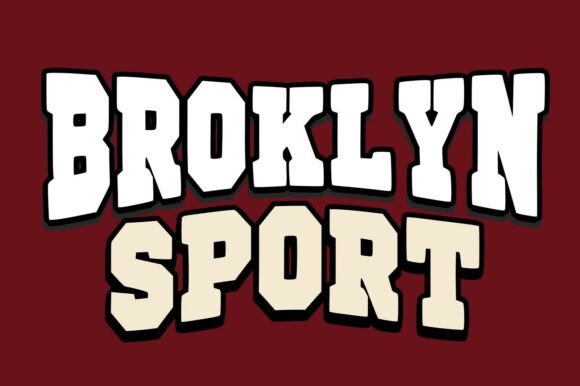
The Ultimate Font for Sports Branding: Brooklyn Sport Font
I’ll never forget the time I was working on a project to design a logo for a local basketball team. I had all the ideas in my head, but I just couldn’t find the right font to bring it all together. The font had to be bold, powerful, and sporty – and that’s when I stumbled upon Brooklyn Sport Font. It was like a slam dunk (pun intended)! ✨
An Honest Review of Brooklyn Sport Font
- 💪 **Bold and Powerful**: Brooklyn Sport Font is a bold and powerful display font that screams sports branding. Its strong blocky letterforms and sporty character make it perfect for grabbing attention.
- 🎨 **Versatile**: This font is not just limited to sports teams; it’s also great for posters, t-shirt designs, merchandise, and retro athletic themes.
- 👍 **Easy to Read**: Even at smaller sizes, Brooklyn Sport Font remains clear and easy to read, making it perfect for headlines and titles.
- ✅ **High-Quality**: The font is well-designed and well-crafted, with crisp lines and smooth curves.
While Brooklyn Sport Font is an amazing font, there are a few things to keep in mind: 🤔
- ⚠️ **Limited Use Cases**: While it’s a great font, it’s not suitable for body text or long paragraphs. It’s best used for headlines and titles.
- ⚠️ **Not Suitable for All Audiences**: The font’s bold and sporty style may not appeal to all audiences, so use it in context.
The Backstory of Brooklyn Sport Font
Brooklyn Sport Font was designed with the goal of creating a bold and powerful font that captures the spirit of sports and athleticism. The designer drew inspiration from classic athletic typography and varsity-style fonts, with a modern twist. The result is a font that’s both energetic and eye-catching, perfect for sports branding and headlines.
Q: What is Brooklyn Sport Font?
A: Brooklyn Sport Font is a bold and powerful display font inspired by classic athletic and varsity-style typography.
Q: What is Brooklyn Sport Font used for?
A: Brooklyn Sport Font is perfect for sports branding, team logos, posters, t-shirt designs, merchandise, and retro athletic themes.
Q: Is Brooklyn Sport Font easy to read?
A: Yes, Brooklyn Sport Font is clear and easy to read, even at smaller sizes, making it perfect for headlines and titles.